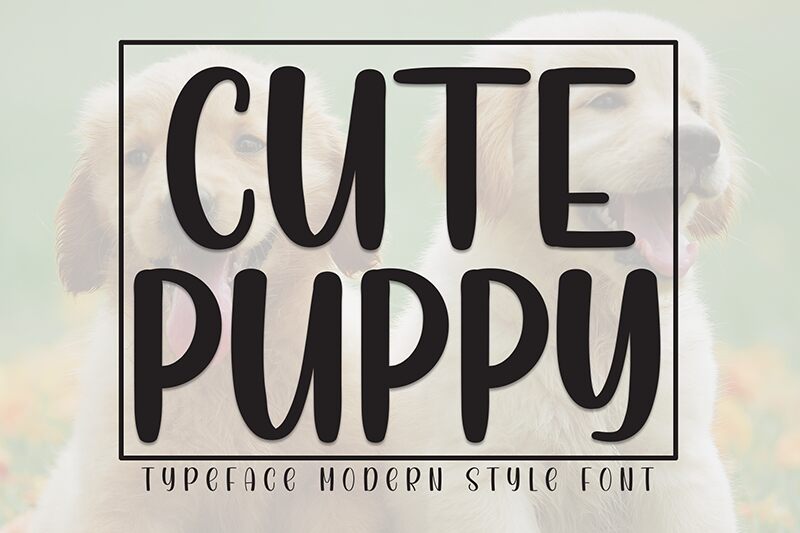
Cute Puppy
Cute Puppy font is a whimsical brush font by Andi Moz that oozes retro-inspired charm. With its casual and friendly design, this free font brings a playful touch to any project. The approachable style mimics handwritten strokes, making it perfect for creating inviting visuals with a dash of nostalgia.